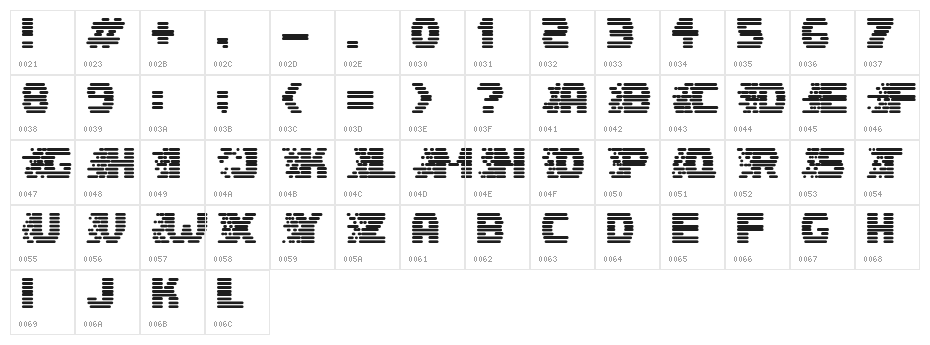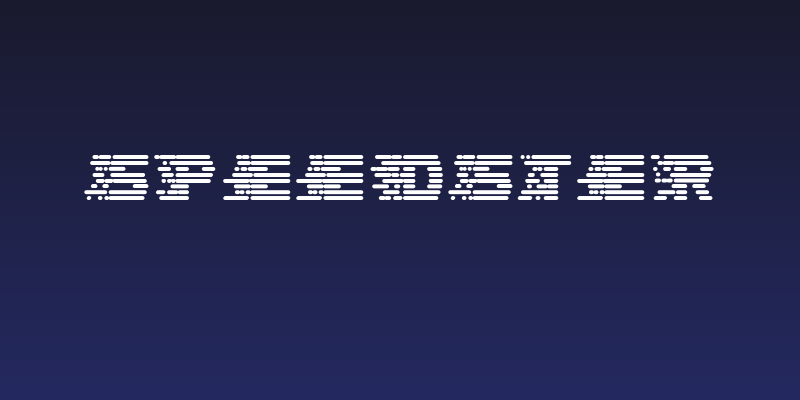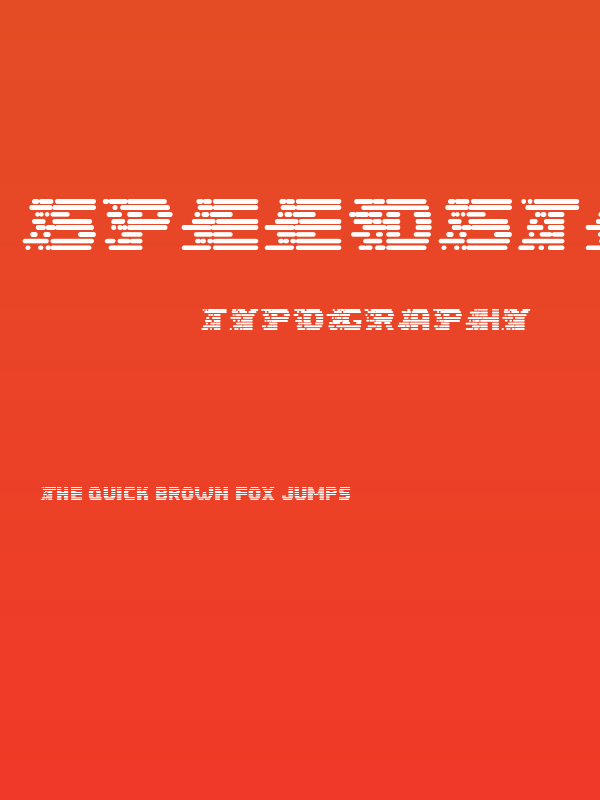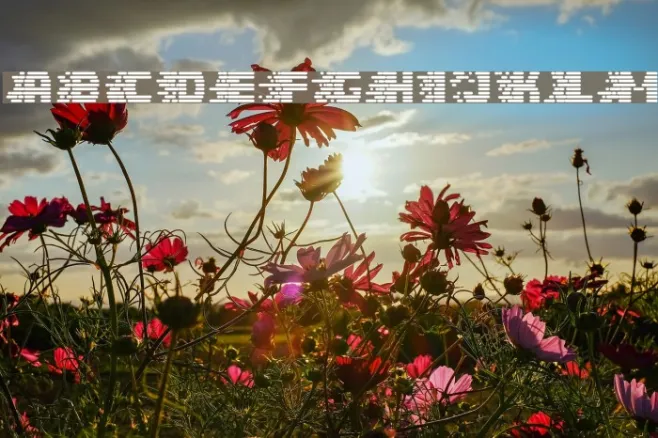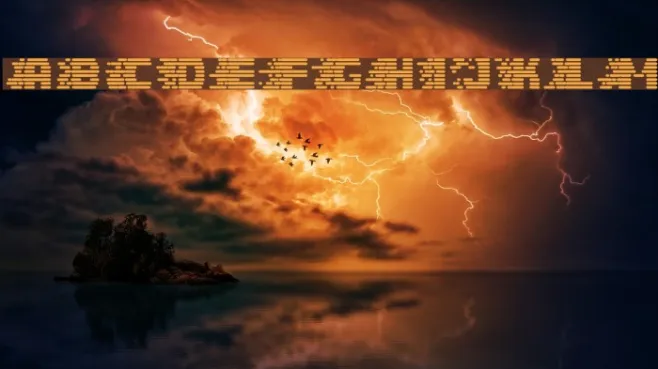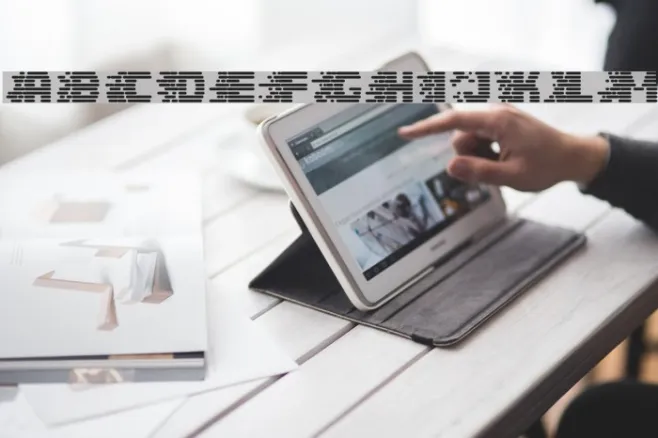
Speedster Font
This font features a unique, futuristic design with a distinct horizontal line pattern that gives each character a sense of motion and speed. The uppercase letters are bold and structured, while the lowercase letters maintain the same dynamic style. Numbers and special characters are designed to match the overall aesthetic, making them cohesive with the rest of the typeface. The font's design is reminiscent of digital displays or racing themes, emphasizing speed and modernity. Its bold and striking appearance makes it ideal for projects that require a strong visual impact.
| Proposed Projects | Ideal for technology branding, racing event posters, video game titles, and futuristic-themed designs. |